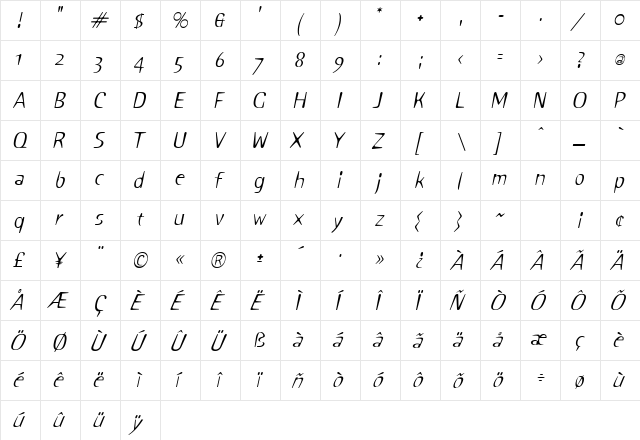
Sniff Italic
Design Context for Sniff Typeface
Sniff offers clean, dependable letterforms without strong stylistic allegiance, making it a practical choice for designers who need flexibility. The slanted form adds forward momentum and visual energy.
Pro Tip: Try Sniff for annotation and caption copy alongside an upright companion — the contrast in angle creates a dynamic but ordered typographic system.